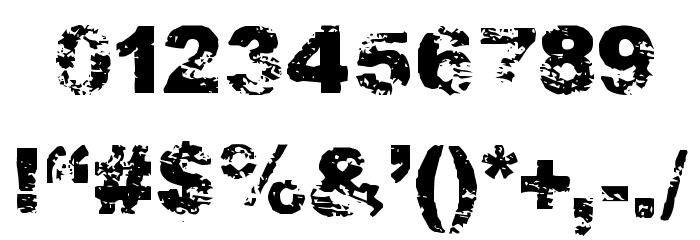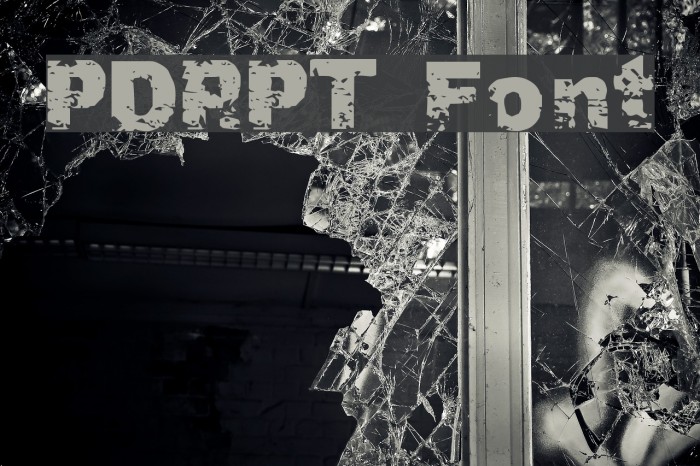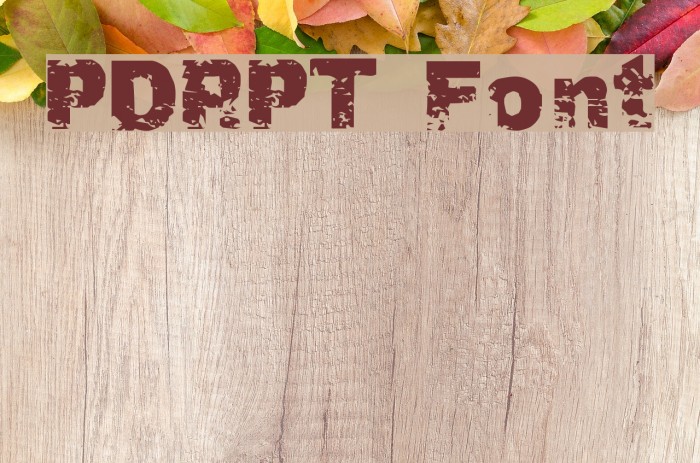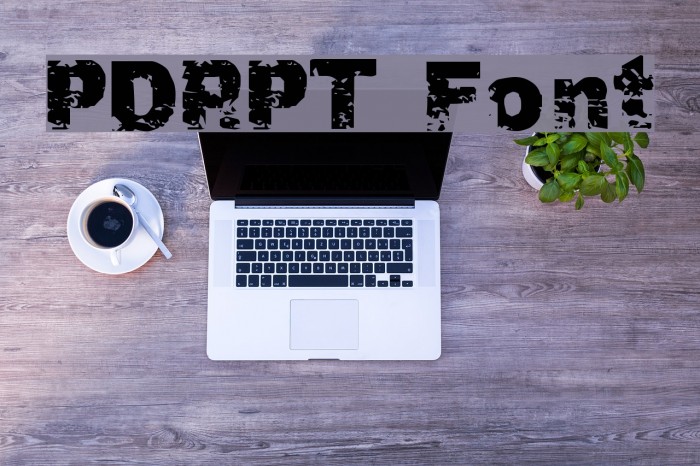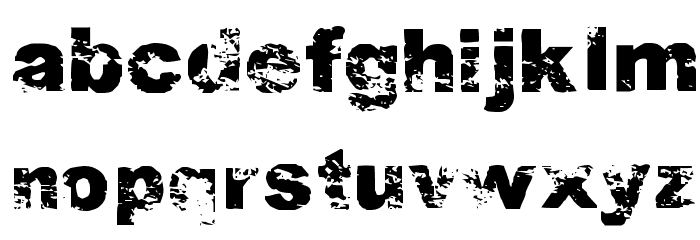
PDRPT Font
This font features a distressed, grunge style with a bold and impactful appearance. The characters are heavily textured, giving them a worn and rugged look, reminiscent of weathered surfaces or eroded materials. The uppercase and lowercase letters maintain a consistent weight, while numbers and special characters follow the same stylistic approach. The font's unique texture adds a layer of depth and character, making it ideal for projects that require a raw, edgy aesthetic. Its boldness ensures legibility despite the distressed effect, making it suitable for attention-grabbing designs.
A bold, distressed font with a grunge texture, perfect for edgy designs.
• Proposed Projects: Ideal for album covers, posters, urban-themed branding, and apparel designs.
• Category: Decorative/Display
• Bold: Yes
• Italic: No
• Weight: Bold
• Width: Normal
• Character Spacing: Normal
• Contrast: Low
• Overall Style: Grunge, Edgy, Distressed
• Use Case: Headlines, Logos, Posters